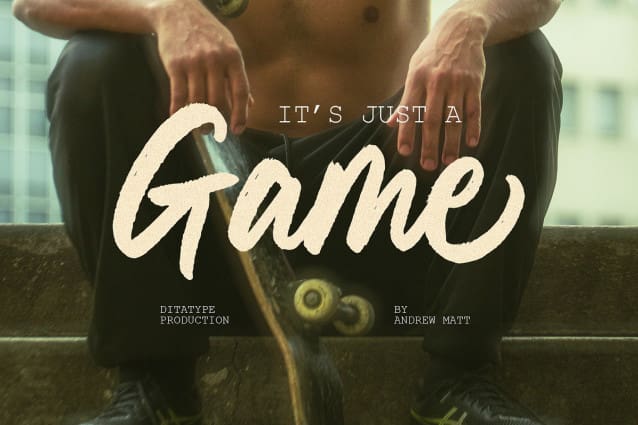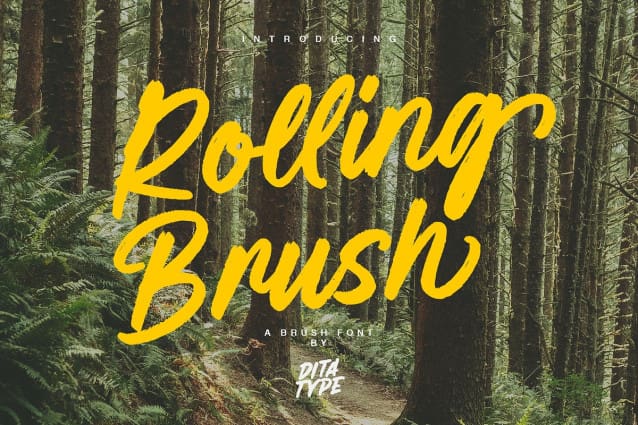
Rolling Brush Font
Rolling Brush is a script font that gives handwriting appearance with original and personal brush details. This font is made beautifully so that the letters are connected to each other, creating a continuous and flowing look. Each letter is attached to the previous letter and continues to the next letter, creating beauty in writing unity.
This font shows brush details on each letter. Brush strokes displays a rough, organic texture to the edges of the letters, adding dimension and visual life. These details give a unique impression to this script font. On the other hand, even though it has a rough border, this script still maintains a natural and elegant aesthetic touch.
Some letters may have dramatic twists, while others are simpler. This flexible shape creates an expressive and creative look to the lettering. Because it is designed with a rough border, it would be better if you use this font at a large text size so it is more easy to read. Enjoy the various features available in this font as well.